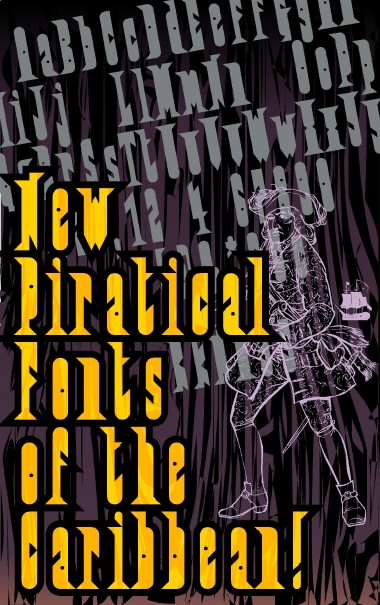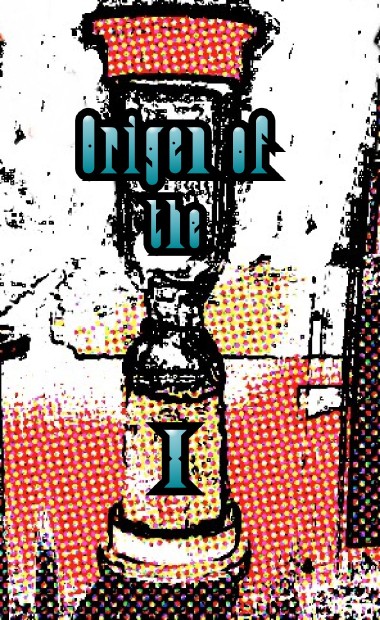
I beg your pardon, it was a mistake at night: I put here the sample unfinished. I'll do something better, I promise.
very fun and entertaining - font and sample. inventive and stylish. and works together nicely. argh, matey :)
Thank you very much for your words. fk. I think this is a versatile font that it works both in upper case as lower case. And it's funny.
this is a good looking font.